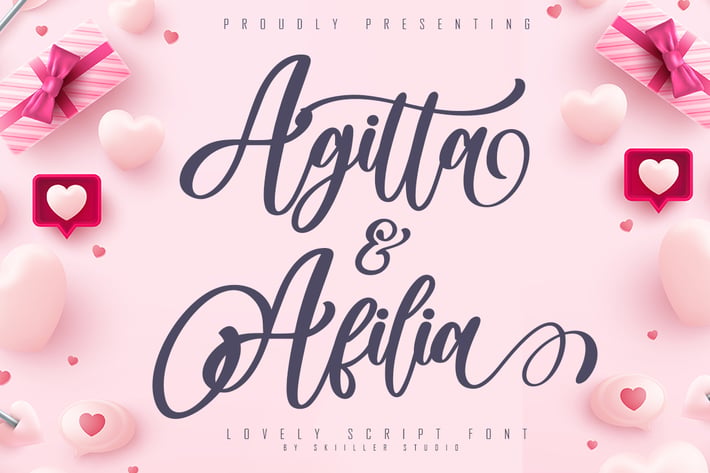
Agitta Afilia Lovely Script Font
Agitta Afilia Lovely Script Font is a beautiful font script with a modern and cool style designed with many features more than 200+ alternate encoded PUA and more than 400+ GLYPHS, suitable for promotion, business, company, clothing, wedding and more
+ Ligature
+ Stylistic alternate for uppercase
+ Stylistic alternate for lowercase
+ Basic Latin Language Support (AÀÁÂÃÄÅCÇDÐEÈÉÊËIÌÍÎÏÑOØÒÓÔÕÖUÙÜÚÛWYÝŸÆß )